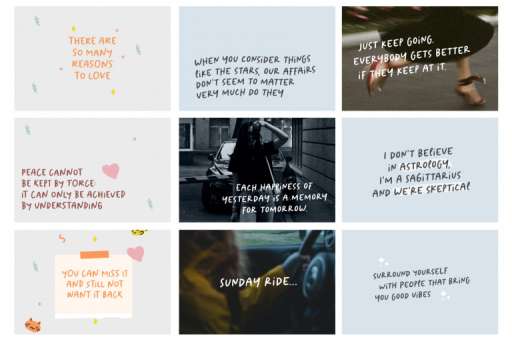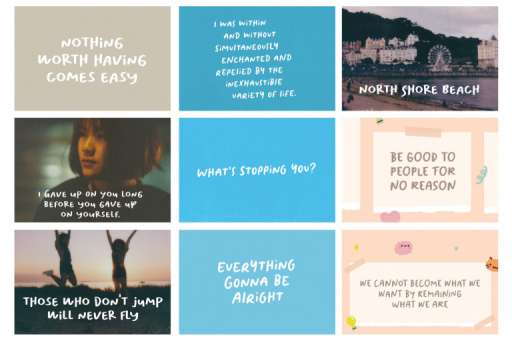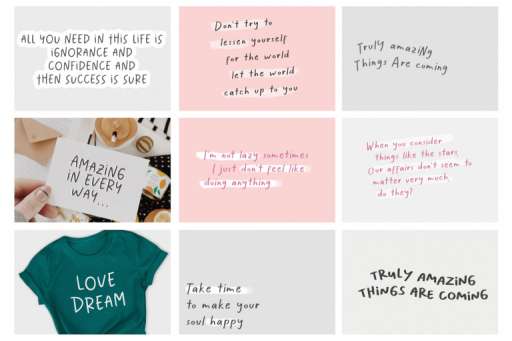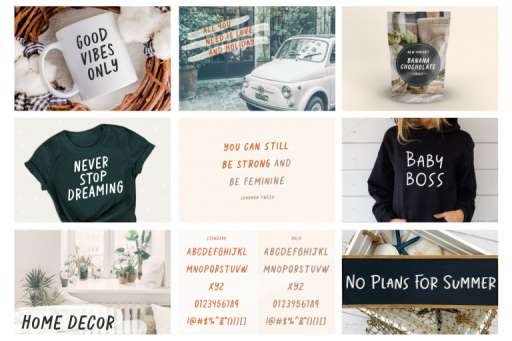
Handwritten Font Bundle
Aesthetic Sage Font
Eskiko Market Font
Frenchy Font
Himalaya Font
Lillybonie Font
Meringue Cook Fonties
Sotokaromi Font
Sotokaromi Bold Font
Handwritten Font Bundle
Handwritten font bundle suitable for your Pinterest and Instagram designs, all our new best-selling unique fonts!